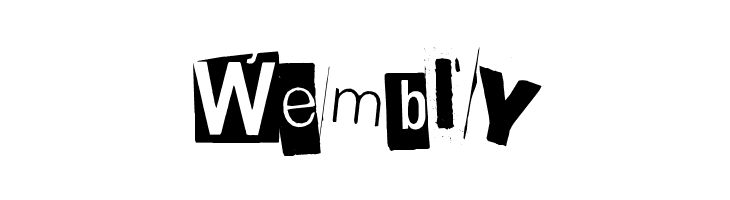
Byzan Regular Font
- Font: Byzan Regular
( Fonts by Pi Luo Chiu - thisisallenchiu.tumblr.com )
A distressed, eclectic font with a cut-out, grungy aesthetic.